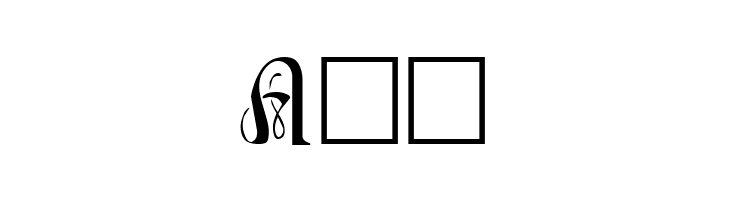
An elegant script font with flowing, cursive letters and intricate swashes.
A graceful and elegant script font with flowing, interconnected letters.
A delicate, cursive handwritten font with flowing lines and elegant strokes.
A bold, artistic font with geometric and organic elements, ideal for decorative use.
A bold, expressive handwritten font with dynamic strokes and playful elegance.
A bold, expressive script font with a hand-painted, brush-like style.
Decorative silhouette font featuring ancestral figures in historical attire and activities.
A bold, brush-style font with dynamic and energetic characters.
A bold, artistic font with dynamic, hand-drawn strokes and a unique flair.
A bold, brushstroke-style font with a dynamic and expressive appearance.
A bold, brush-style font with a textured, artistic appearance.
A bold, brush-style font with sharp, dynamic strokes and a hand-painted appearance.
A bold, geometric font with a strong, modern presence.
A bold, Art Deco-inspired font with geometric shapes and sharp angles.
A bold, playful font with rounded, bulbous characters and whimsical flourishes.
A bold, Art Deco-inspired font with geometric shapes and high contrast.
An elegant, cursive font with flowing, ornate letters.
A bold, angular serif font with ancient Greek and Roman influences.
A bold, decorative blackletter font with high contrast and ornate details.
A blackletter font with sharp, angular lines and a Gothic, medieval aesthetic.
Ancient-themed dingbat font with detailed line art illustrations.
Pictorial, decorative font based on ancient Egyptian hieroglyphs.
A font inspired by ancient Greek inscriptions with angular, geometric letterforms.
An ornate, historical font with intricate decorative elements and a vertical emphasis.
Ornamental symbol font with ancient and geometric motifs.
A bold, modern font with angular edges and a striking presence.
A bold, textured font with a vintage, rugged appearance.
A modern serif font with elegant curves and balanced stroke contrast.
A bold, modern serif font with strong, confident letterforms.
A bold serif font with a classic yet modern appeal, ideal for impactful designs.
A bold, italic serif font with a modern yet classic appeal.
An elegant italic serif font with a classic yet contemporary style.